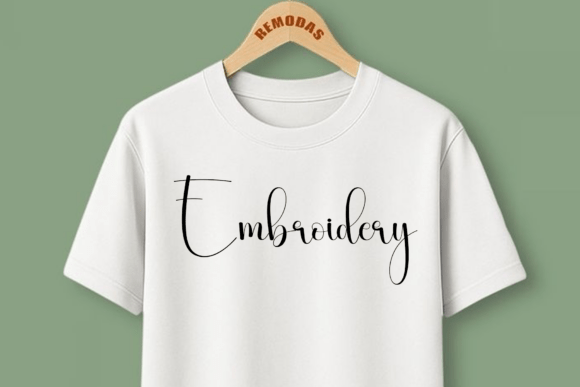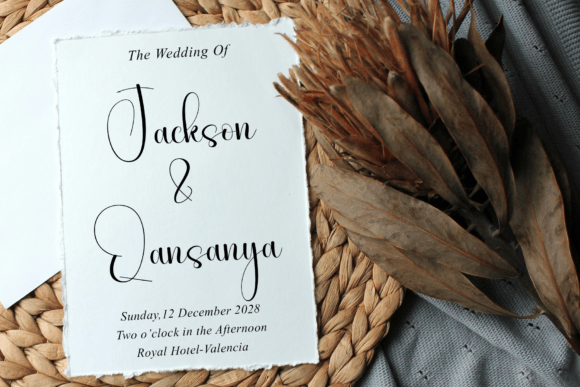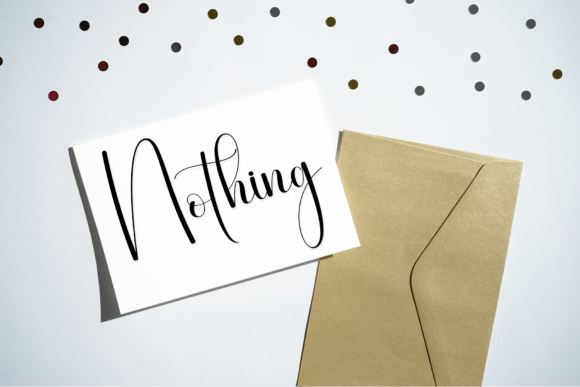
Introduction to Midnighty Font
Midnighty is a sophisticated and fluid script font designed to bring a graceful, hand-penned touch to contemporary creative projects.
This new handwritten font features vertically elongated letterforms rendered with a fine, monolinear stroke weight and smooth character joins The design is characterized by tall, sweeping ascenders and rhythmic visual flourishes that mimic elegant ink work on paper, providing a sense of customized artistry and professional visual flow.